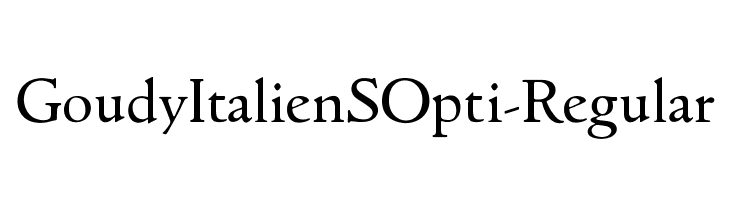
A classic, calligraphic font with elegant curves and sharp serifs.
A classic serif font with elegant, flowing lines and a calligraphic influence.
A classic serif font with elegant curves and balanced contrast.
A classic serif font with elegant lines and a vintage charm.
A classic and elegant serif font with vintage charm and strong presence.
A classic serif font with elegant curves and moderate contrast, ideal for traditional and sophisticated designs.